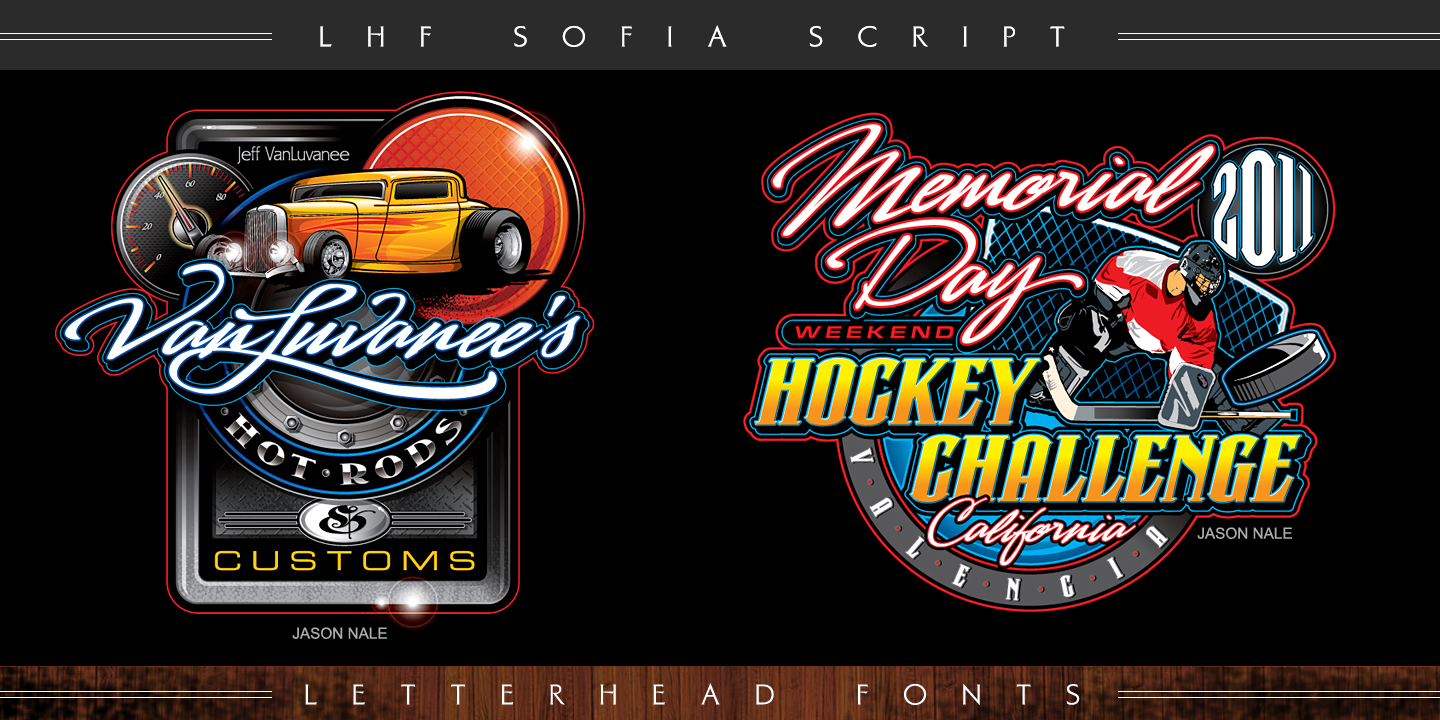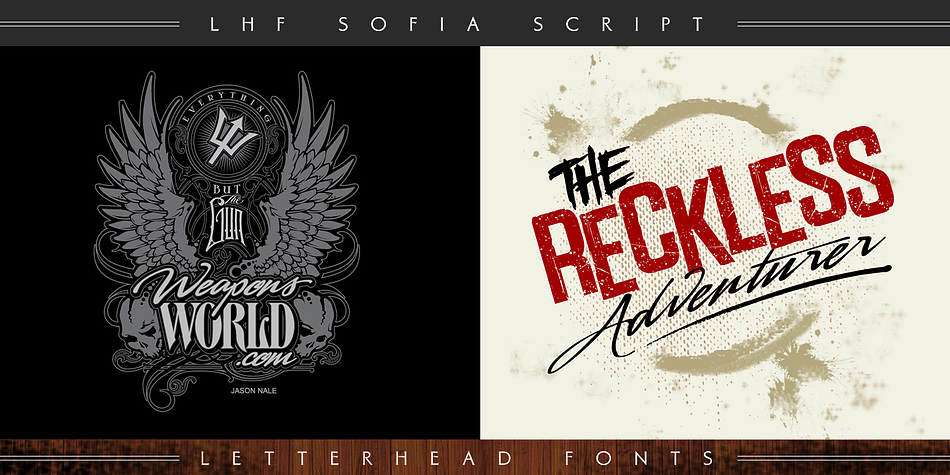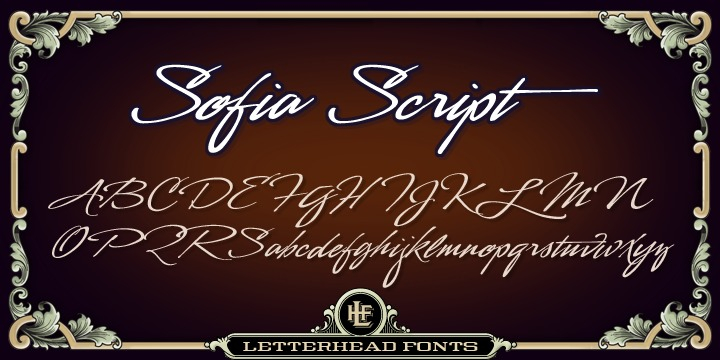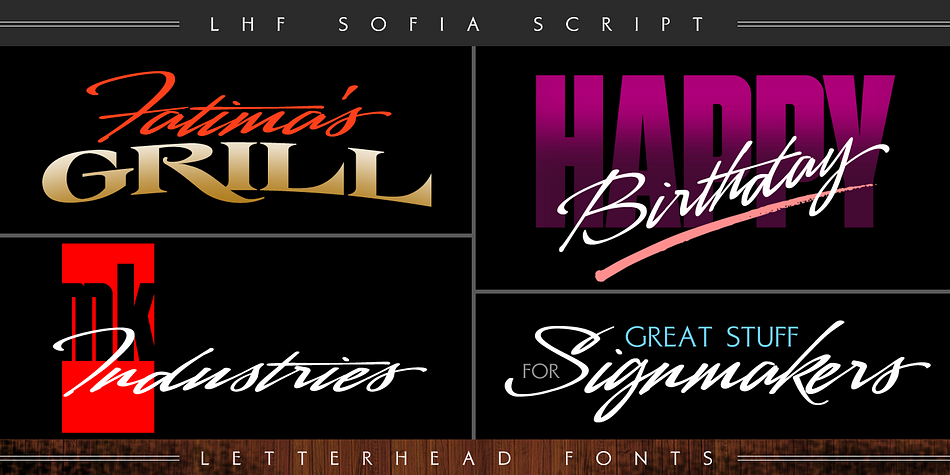
Designed by Chuck Davis, LHF Sofia Script is a hand drawn and script font published by Letterhead Fonts.
Hand-lettered script with alternate characters. Looks especially nice when used in conjunction with bolder letter styles for good contrast.